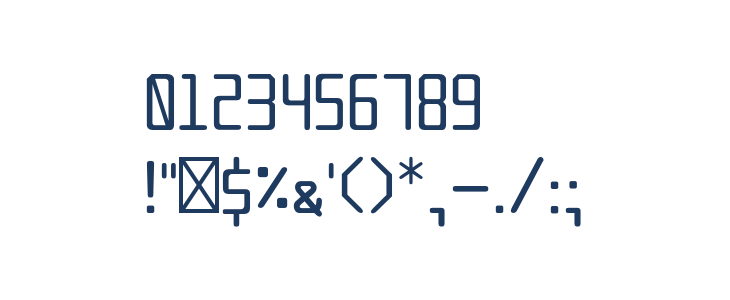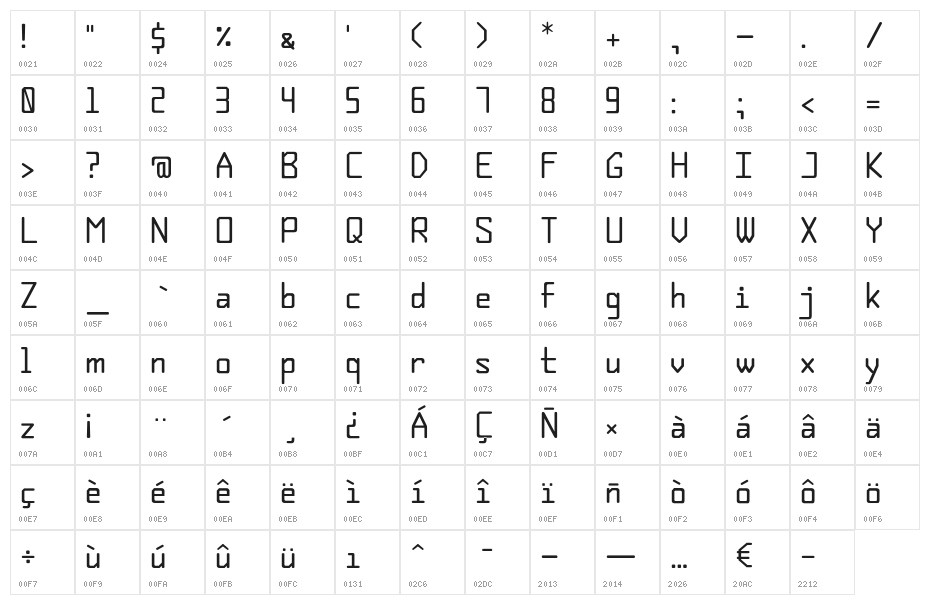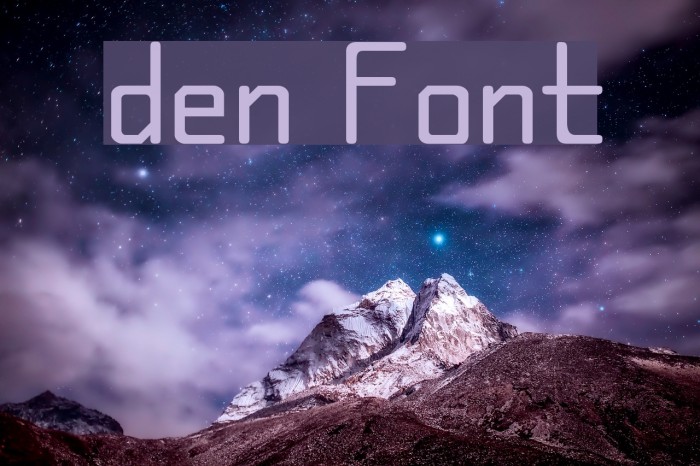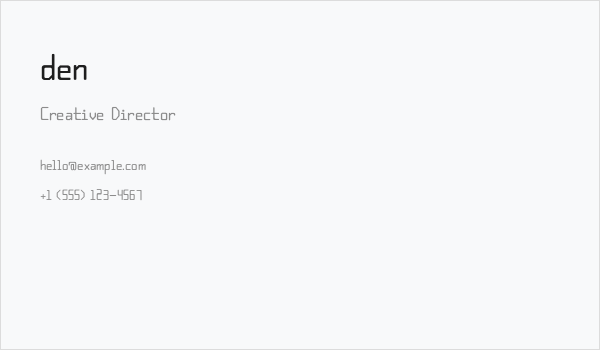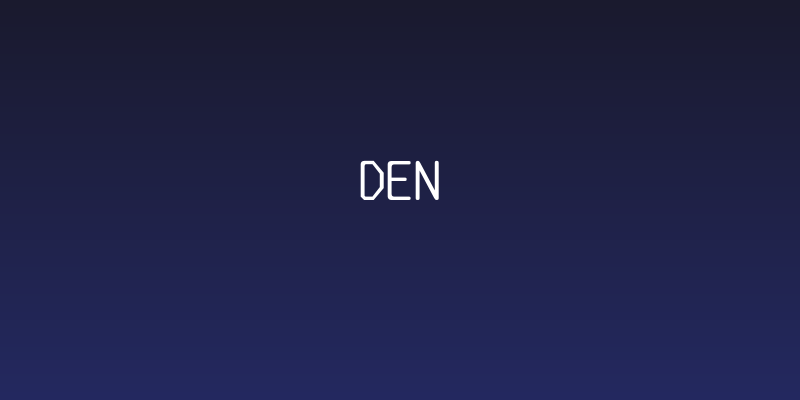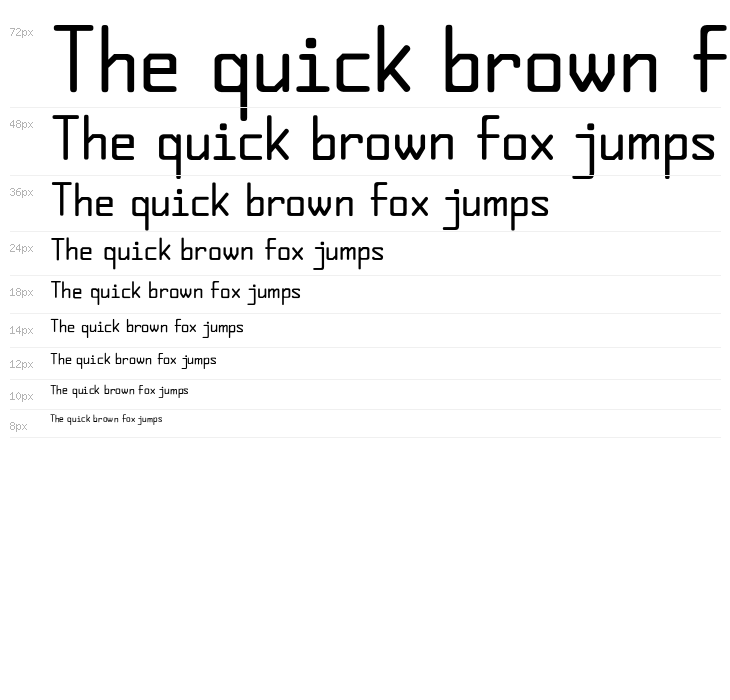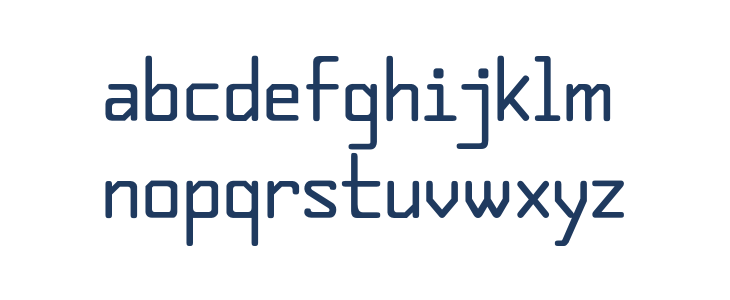
den Font
den Description
This font features a geometric and monospaced design, characterized by its uniform width and clean lines. Each character is crafted with precision, offering a modern and technical appearance. The uppercase and lowercase letters maintain a consistent height, enhancing readability. The numerals are distinct and align perfectly with the overall style, making them ideal for data presentation. Special characters are well-defined, supporting a wide range of uses. The font's simplicity and clarity make it suitable for digital interfaces and technical documentation.
| Use Case | Coding, Technical documentation, Digital interfaces |
| Proposed Projects | Ideal for coding environments, technical documentation, digital interfaces, and data visualization projects. |